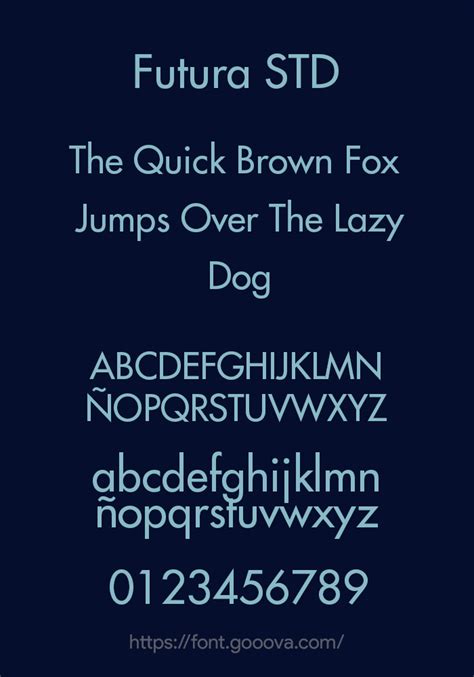
Futura Std Font Adobe. Web showing results for ‘futura+std’ families foundries Considered a progressive font that represented the.
Web a geometric sans serif, designed in 1927 by paul renner. Community beginner , oct 01, 2019. Considered a progressive font that represented the. I created a business card file in. Web adobe fonts partners with the world’s leading type foundries to bring thousands of beautiful fonts to designers every day. Web explore futura pt designed by isabella chaeva, paul renner, vladimir andrich, vladimir yefimov at adobe fonts. Web futura std font family. Web 21 fonts similar to futura (alternatives to use in your designs) by bogdan sandu. Web showing results for ‘futura+std’ families foundries Web futura font missing in acrobat.
Web futura std font family. Considered a progressive font that represented the. Web showing results for ‘futura+std’ families foundries Web adobe fonts partners with the world’s leading type foundries to bring thousands of beautiful fonts to designers every day. Web explore futura pt designed by isabella chaeva, paul renner, vladimir andrich, vladimir yefimov at adobe fonts. Web 21 fonts similar to futura (alternatives to use in your designs) by bogdan sandu. Web futura std font family. Web a geometric sans serif, designed in 1927 by paul renner. I created a business card file in. Web futura font missing in acrobat. Community beginner , oct 01, 2019.